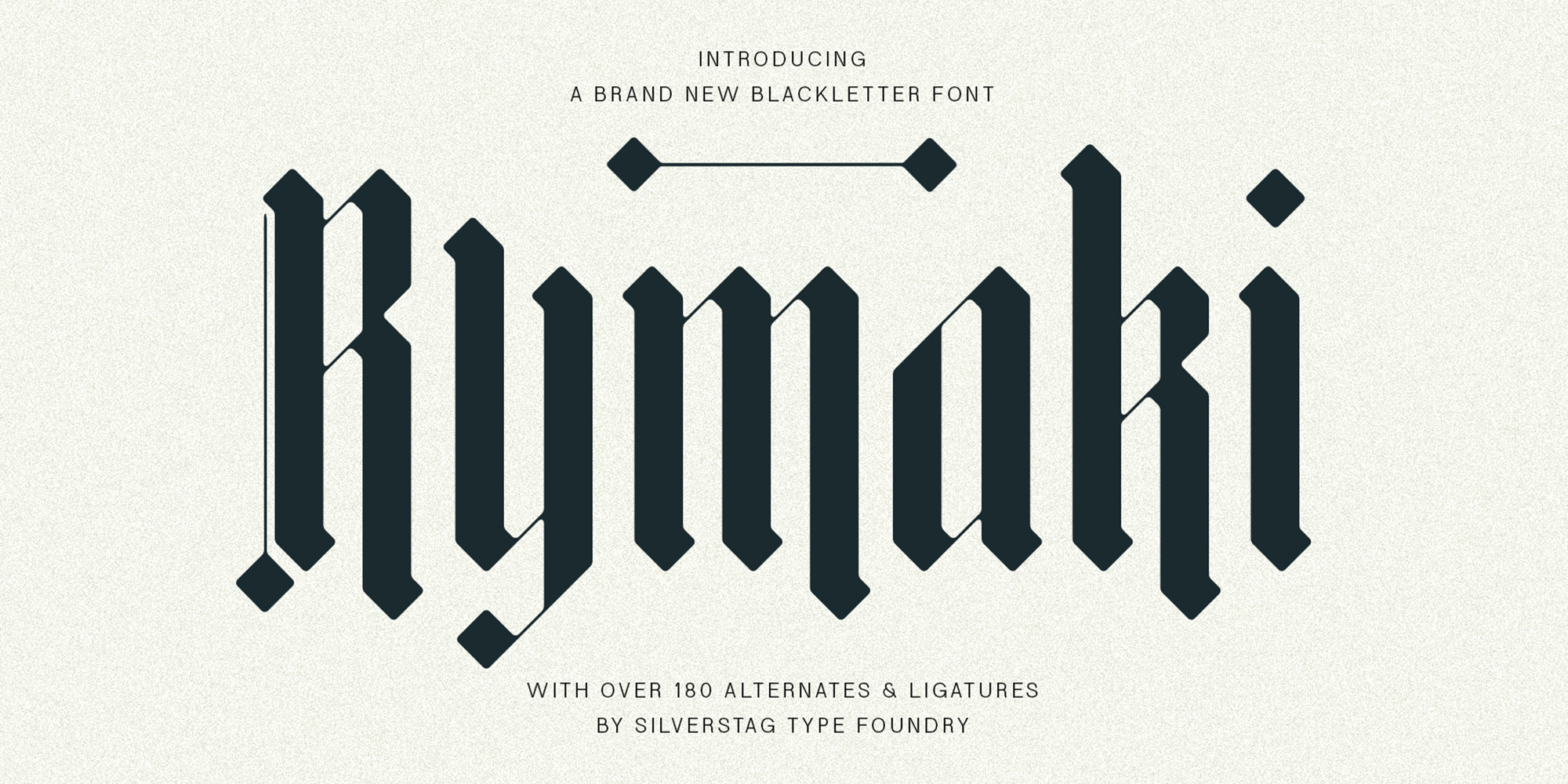
Rymaki Font is perfect for a wide range of design applications including contemporary branding projects, modern logo designs, sleek corporate identity materials, innovative product packaging, architectural signage systems, clean web interfaces, sophisticated business presentations, progressive editorial layouts, minimalist marketing collateral, and refined visual communications.
What makes Rymaki Font exciting is its harmonious balance of geometric precision and organic flow that creates a distinctively contemporary aesthetic with universal appeal. This versatile typeface brings a sense of modern sophistication and accessible elegance to any project with its carefully engineered letterforms that showcase both technical excellence and human-centered design principles. The font's refined character shapes and balanced proportions create an atmosphere of professional competence and contemporary style that resonates with audiences seeking quality, innovation, and authentic communication, making it an ideal choice for brands emphasizing reliability, modernity, and forward-thinking design sensibilities.
The Rymaki Font family includes multiple weights and styles designed to accommodate various contemporary design and branding requirements. The collection typically features regular, bold, light, and italic variations, each maintaining the font's signature modern aesthetic while providing comprehensive typographic flexibility. Additional alternate characters and stylistic sets enhance the family's creative potential for brand-focused design projects.
This premium Rymaki Font Free Download represents an excellent opportunity for designers to explore contemporary typography trends with professional versatility. The font's innovative approach incorporates modern design principles and user-friendly readability that bring genuine contemporary appeal to current branding and communication projects. Its versatile nature makes it suitable for both digital applications and print materials, ensuring consistent brand representation across corporate, creative, and technology sectors.
Professional designers value Rymaki Font's exceptional quality and comprehensive character support. The font includes extensive punctuation marks, numerical figures, special characters, and international language capabilities, making it perfect for global corporate brands and international design projects. Its meticulously optimized spacing and kerning ensure professional results in branding, marketing, and communication applications.
The increasing recognition of Rymaki Font in the design community reflects its ability to enhance brand identity and create memorable visual communications that balance professionalism with approachability. Whether used for corporate branding, product packaging, or contemporary creative projects, this font delivers outstanding results that celebrate the elegance of modern design while maintaining exceptional functionality and readability.